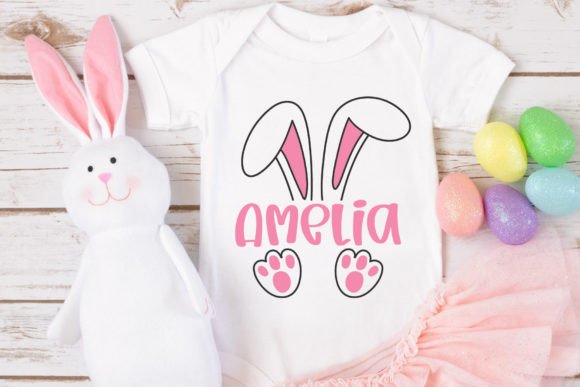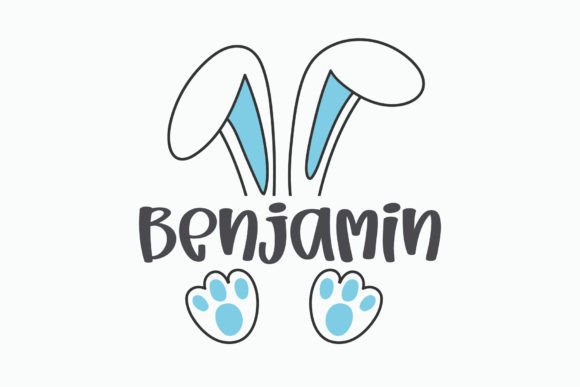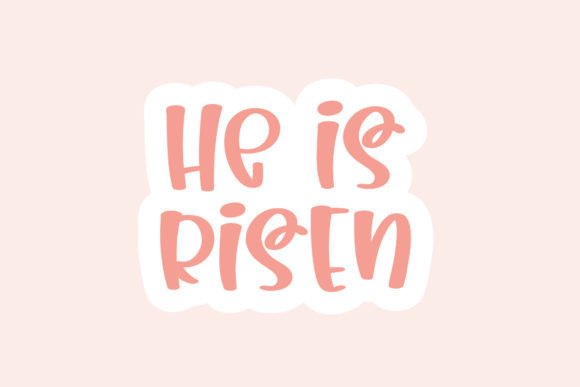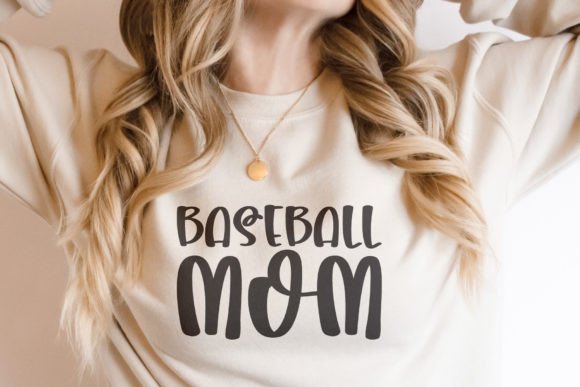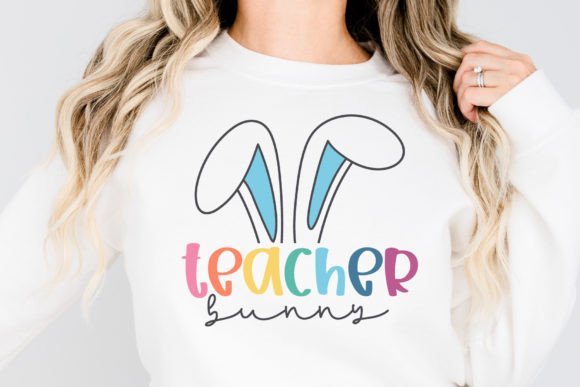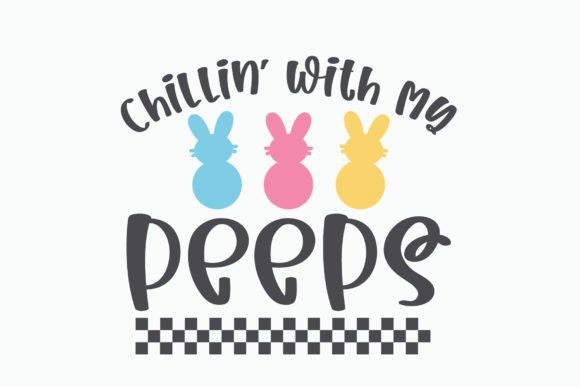
Introduction to Hoppity Font
Hoppity is a sweet and cute display font.
Fall in love with its incredibly versatile style and use it to create fun wedding invitations, beautiful stationary art, eye-catching social media posts, and much more .
Hoppity Font offers exceptional quality and versatility, making it a valuable addition to your design toolkit. Whether you’re creating for personal projects or commercial use, Hoppity Font delivers professional results.